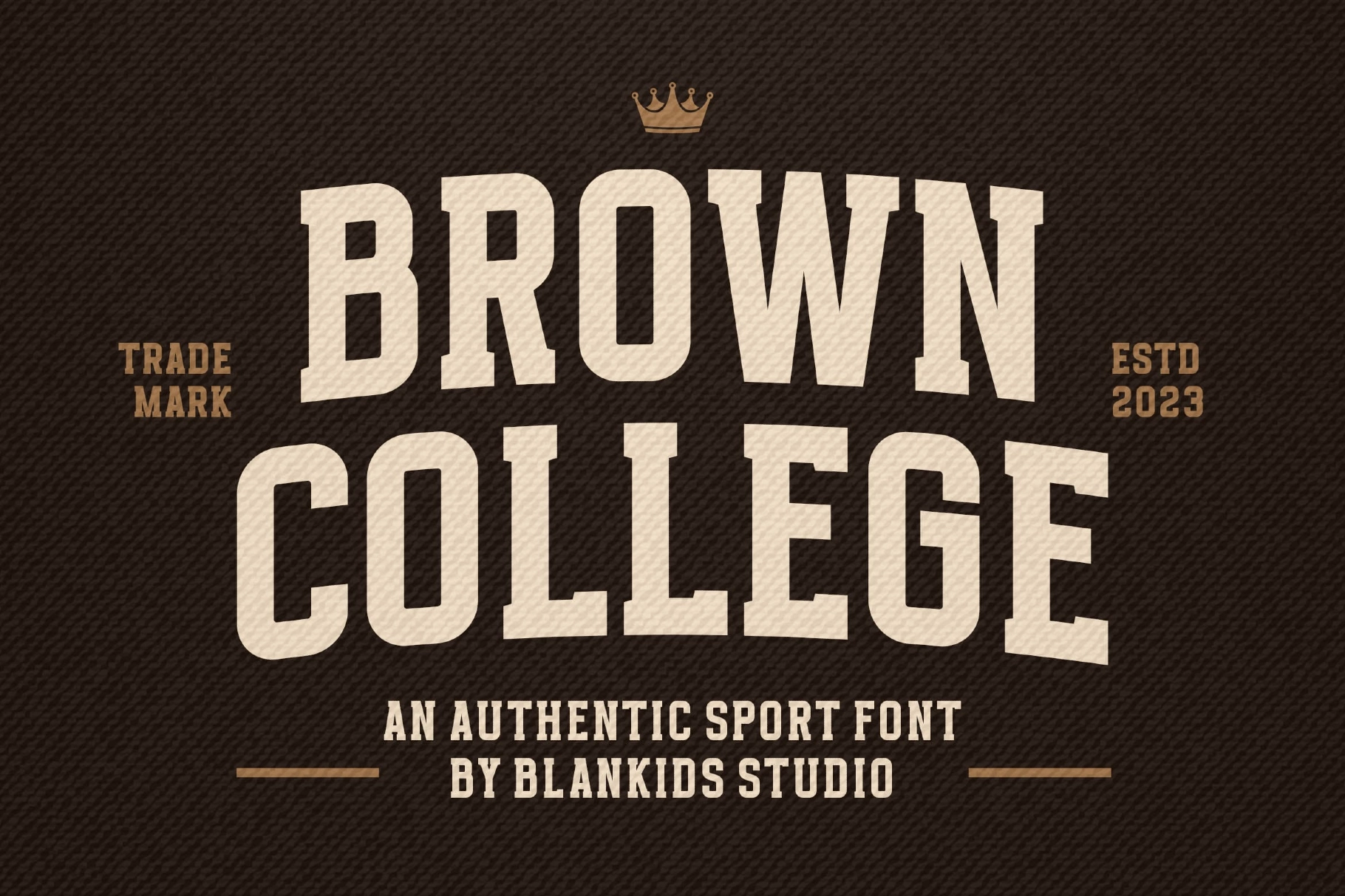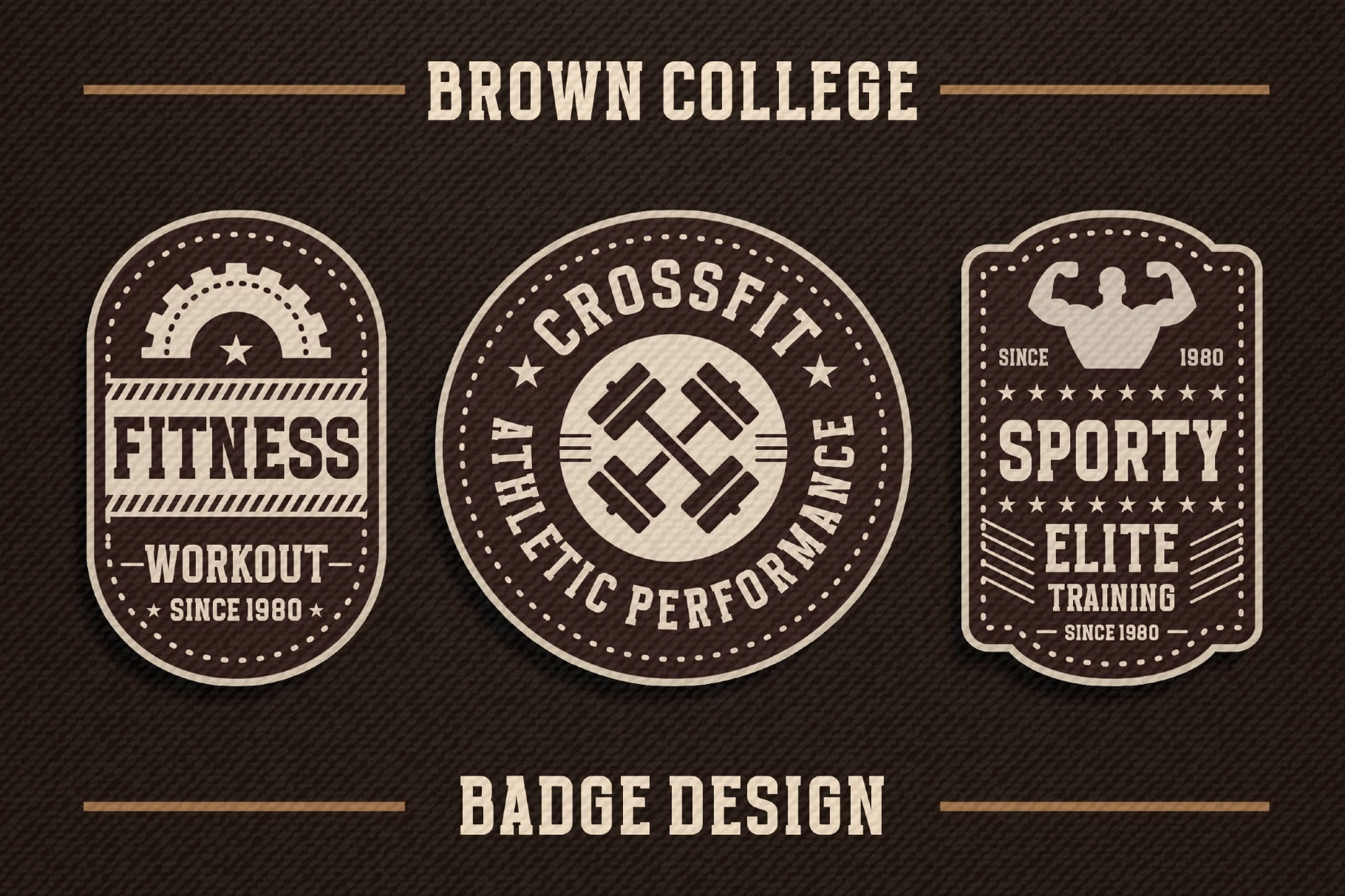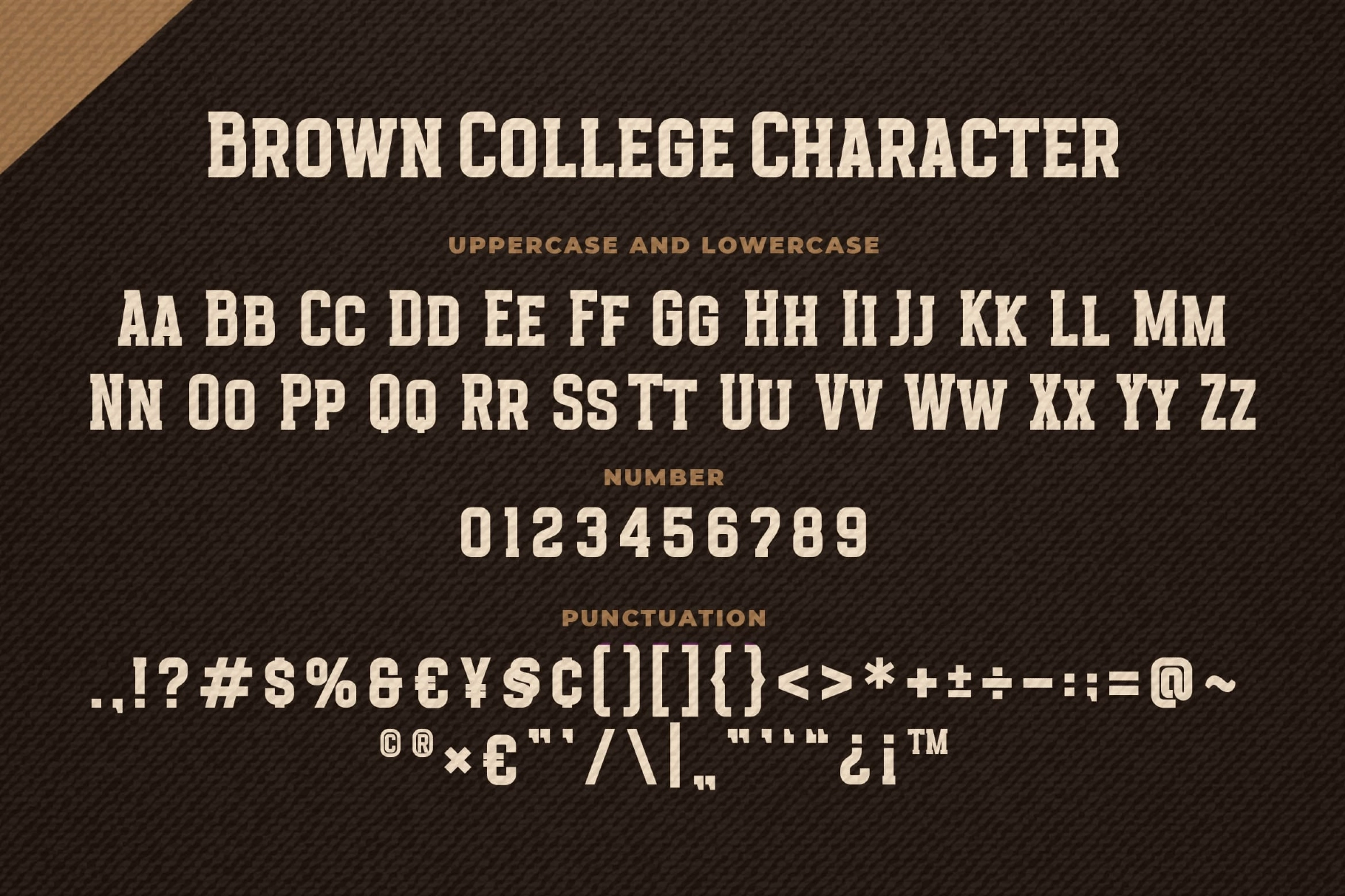
Brown College an Authentic Sport Font
Brown College
Brown College – Authentic Sport Font is a bold collegiate display typeface inspired by classic varsity and college typography. With strong letterforms and a confident vintage athletic style, it brings an authentic sports aesthetic that instantly feels energetic and nostalgic. The design balances bold structure with clean readability, making it perfect for impactful titles and branding.
Ideal for sports branding, merchandise, posters, packaging, logos, book covers, and apparel design, Brown College adds a timeless campus-inspired character to both modern and retro-themed projects.